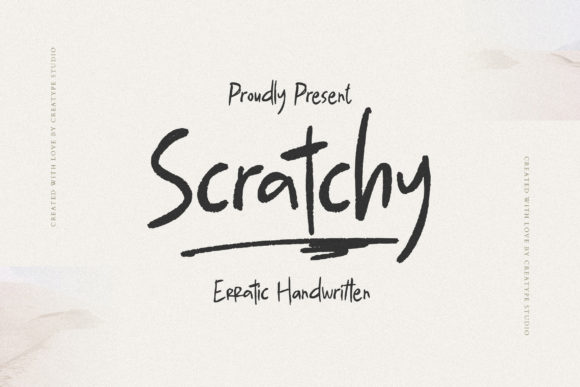
Step inside the world of fonts, where creativity dances with expression, and individuality finds its voice. Scratchy Font, a masterful display font, beckons you to unlock a world of endless possibilities, where your designs take center stage.
Crafted with precision, Scratchy Font embodies the essence of vintage charm, effortlessly blending the allure of the past with the vibrancy of the present. Its captivating glyphs and swashes, accessible with the convenience of PUA encoding, invite you to unleash your imagination and explore unexplored creative horizons.
Scratchy Font is more than just a collection of letters; it's an embodiment of artistic freedom. Its distinctiveness shines through in every curve and line, captivating your audience and leaving a lasting impression. With its innate ability to elevate any creation, Scratchy Font is the perfect ally for designers, artists, and visionaries seeking to make a statement.
Envision your designs adorned with Scratchy Font's timeless elegance, evoking a sense of nostalgia and authenticity. Whether you're crafting logos that exude character, posters that speak volumes, or social media graphics that demand attention, Scratchy Font is your trusted companion, guiding you towards design excellence.
The beauty of Scratchy Font lies in its versatility, adapting seamlessly to a myriad of projects. Its vintage charm adds a touch of sophistication to retro-inspired designs, while its modern spirit breathes life into contemporary creations. Experiment with different colors, textures, and layouts, discovering new depths of expression with every design iteration.
With Scratchy Font as your creative partner, you'll discover a font that transcends the ordinary, a font that ignites your passion and fuels your creativity. It's a font that speaks to your soul, transforming your designs into tangible expressions of your artistic vision.
Embrace the allure of Scratchy Font today, and embark on a creative journey where imagination knows no bounds. Let your designs bloom with character, charm, and timeless beauty, leaving an indelible mark on the world of design.